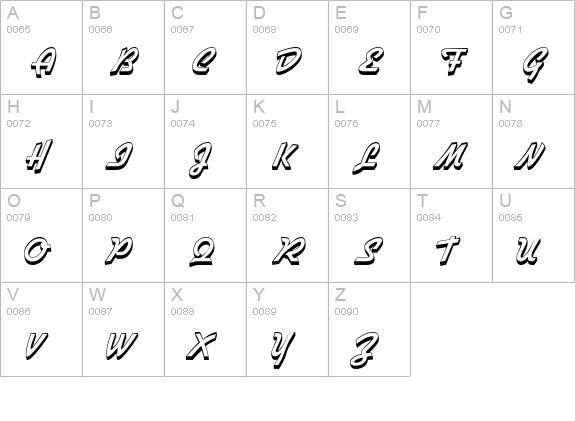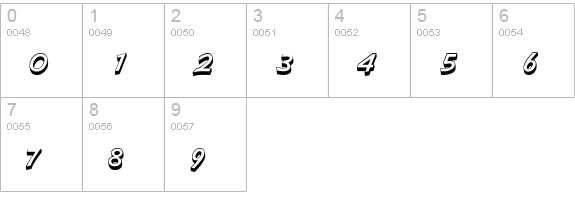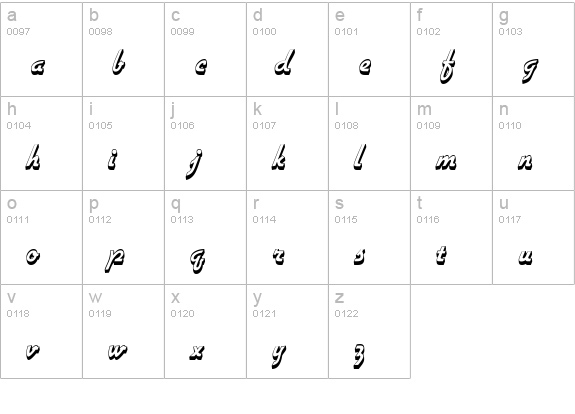
GallanteOutline Font Details
GallanteOutline font is a stunning display font that exudes elegance and sophistication. Its sleek and modern design makes it a perfect choice for a wide range of creative projects, from branding and logos to posters and packaging. What sets GallanteOutline font apart is that it is not only visually captivating but also free for personal and commercial use. Yes, you heard it right! This incredible font can be downloaded at no cost from FontsMarket.com, a trusted platform for high-quality fonts. With its clean lines and bold strokes, GallanteOutline font adds a touch of professionalism and style to any design. Its unique and eye-catching letterforms make it stand out from the crowd, ensuring that your message is delivered in a memorable way. Whether you're a graphic designer, a small business owner, or simply someone looking to add a touch of sophistication to their personal projects, GallanteOutline font is the perfect choice. Its versatility, combined with its free availability, makes it a must-have font in your design arsenal. So why wait? Head over to FontsMarket.com and download GallanteOutline font today, and unlock a world of endless creative possibilities. Remember, great design doesn't have to come at a cost when you have access to amazing fonts like GallanteOutline font, freely available for all your design needs.